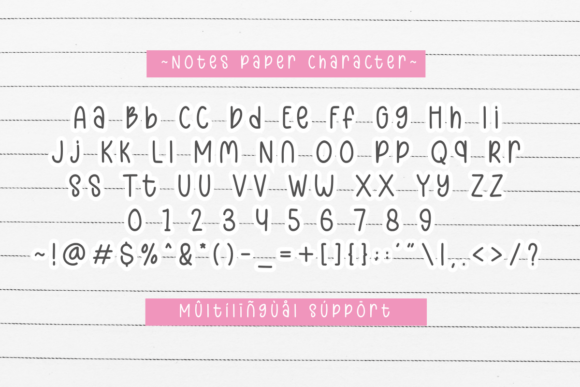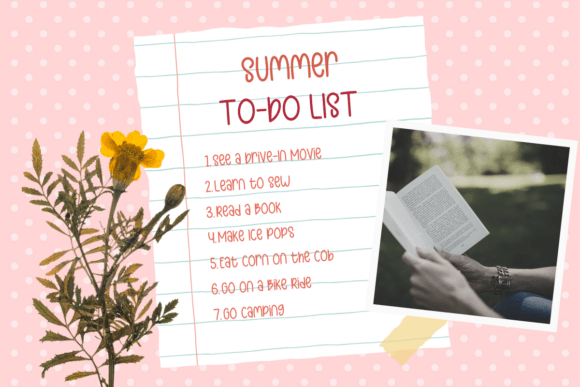
Notes Paper Font
Notes Paper is a cute and playful handwriting font, perfect for planners, stickers, cards, quotes, and craft projects. Ideal for creative moms who love DIY, journaling, and Cricut crafts!